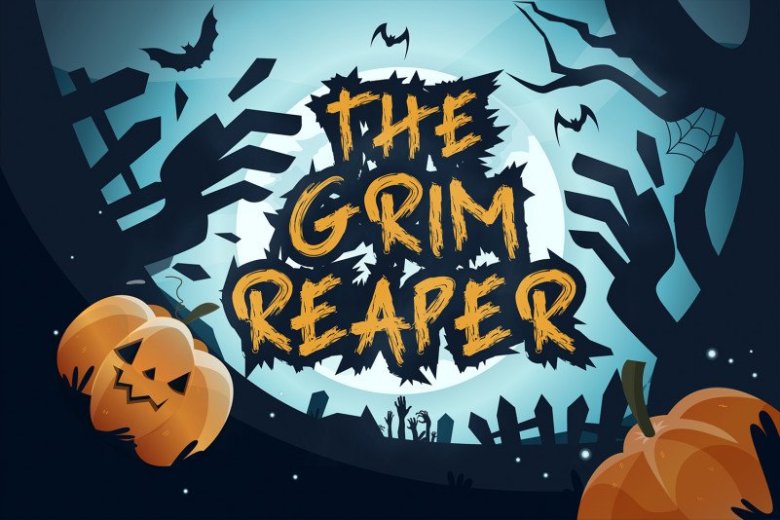
Grim Reaper – Handbrush Font
Introducing a new brush font “The Grim Reaper”.
The Grim Reaper is very suitable for Logotype, heading, cover, poster, logos, quotes, product packaging, header, merchandise, social media & greeting cards and all your other projects that need handwriting taste and spooky-themed craft.